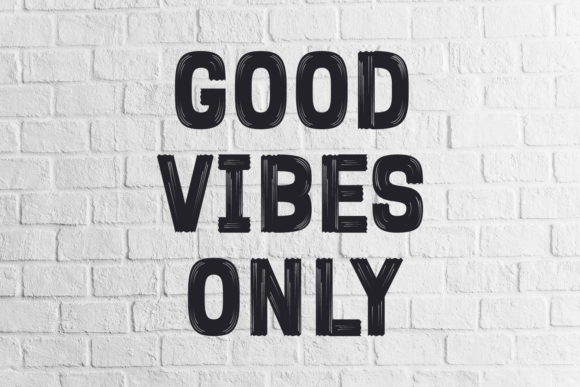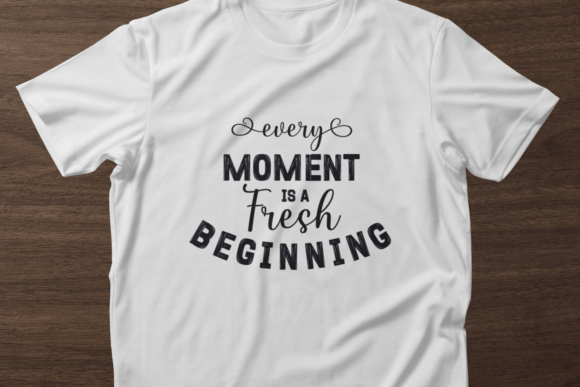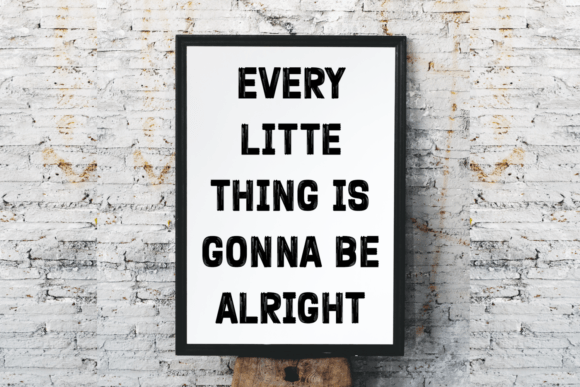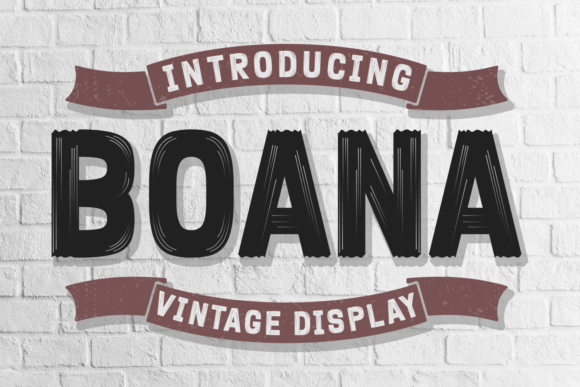
Introduction to Boana Font
Boana feels playfully nostalgic and delivers an incredible vintage aesthetic.
Use this font to add that special retro touch to any design idea you can think of .